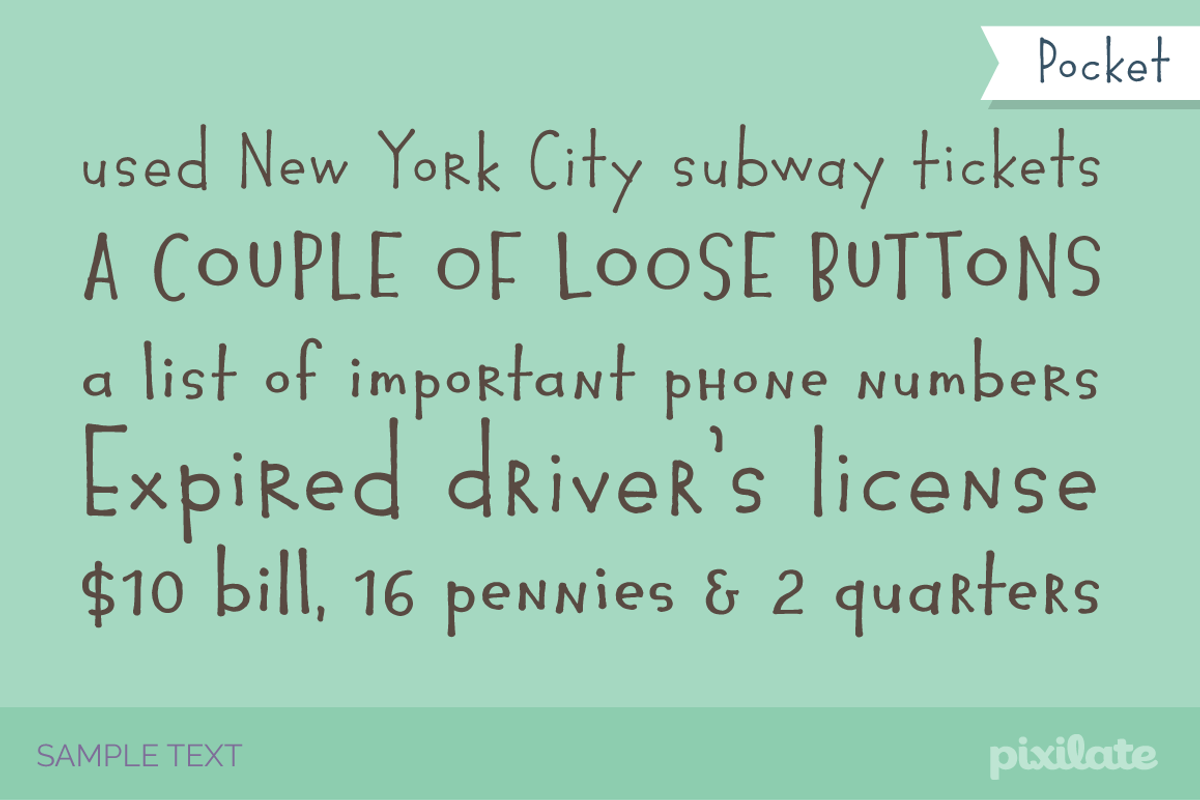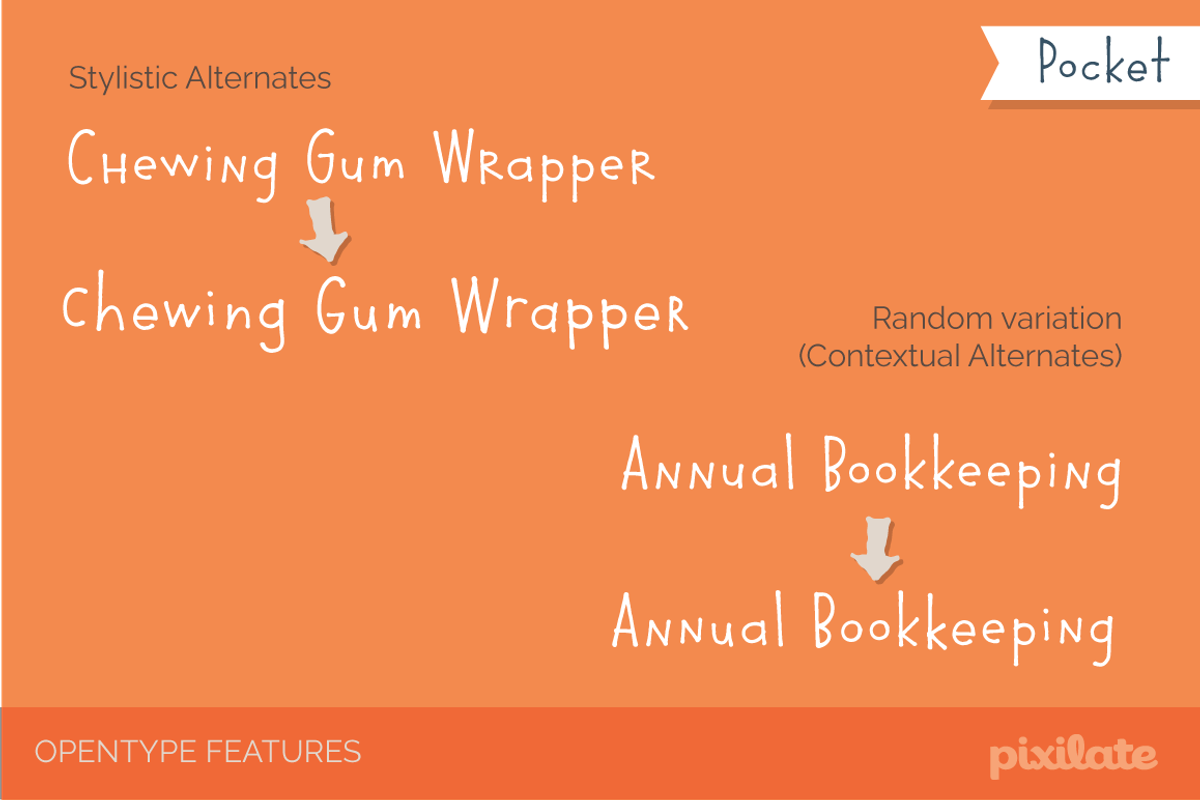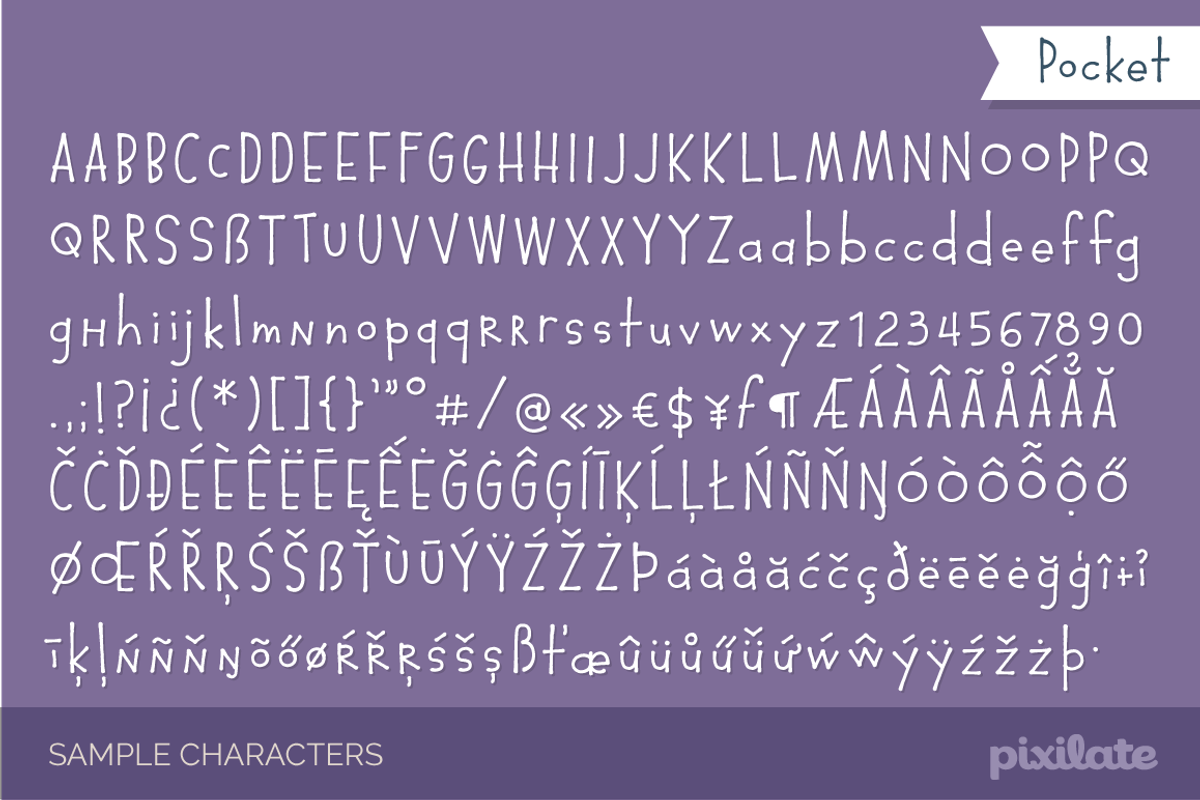
Pocket Px- Comic handdrawn font
Pocket Px- Comic handdrawn font by Letradora is a font selected for branding, posters, packaging, typography.
- It has alternates for most letterforms, accessible through Opentype features that let you have variations that make it look authentically ha
Why Pocket Px- Comic handdrawn font is worth a look
Pocket Px- Comic handdrawn font by Letradora fits naturally into Branding, posters, packaging, typography.